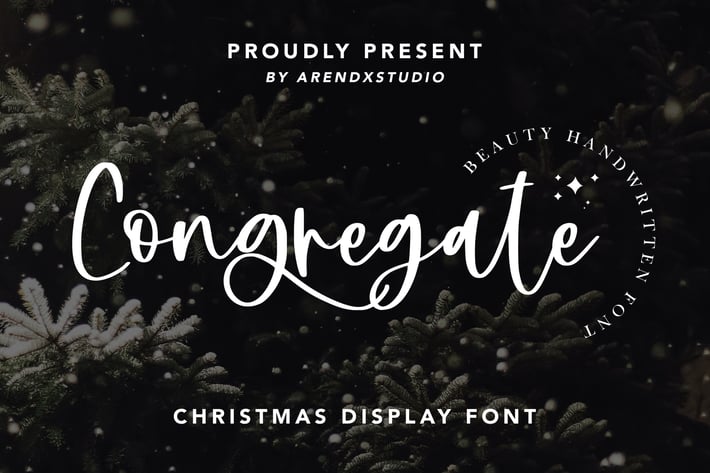
Congregate - Christmas Display Font
Congregate - Christmas Display Font is a font with distinctive handwritten characters perfect for branding projects, logos, wedding designs, media posts, advertisements, product packaging, product designs, labels, photography, watermarks, invitations, stationery, and any project who need handwritten dishes.